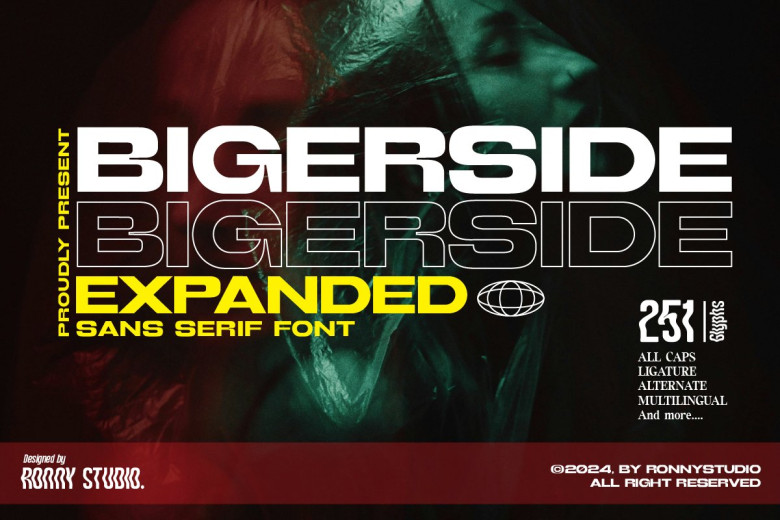
Bigerside Expanded Font
Bigerside Expanded is an all-caps sans serif font with an eye-catching body and high contrast levels, perfect for modern designs and colors. With its clean, elegant style and professional shaping, Bigerside effortlessly fits with various styles that require unique designs.
Use it with confidence in your designs – you will be delighted by its stunning results. This typeface works beautifully as logos and branding elements, promotional book layouts or text overlays over images of every kind.
Bigerside Expanded Sans Serif Font